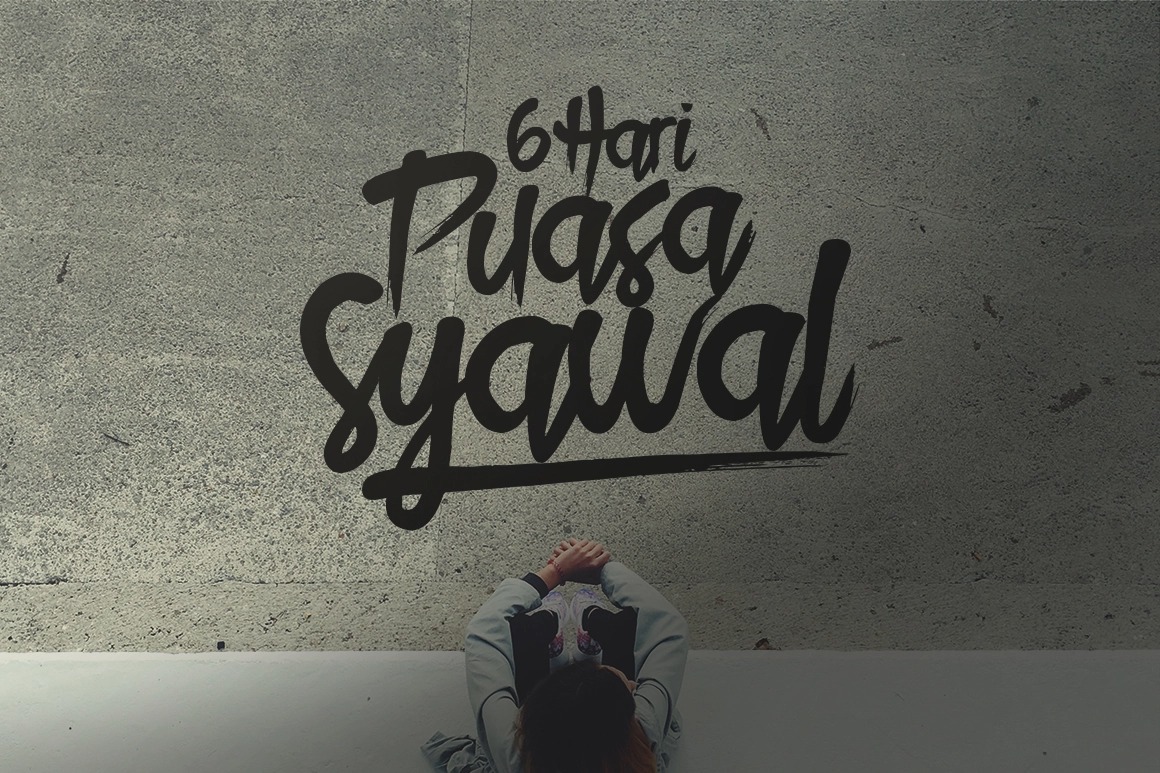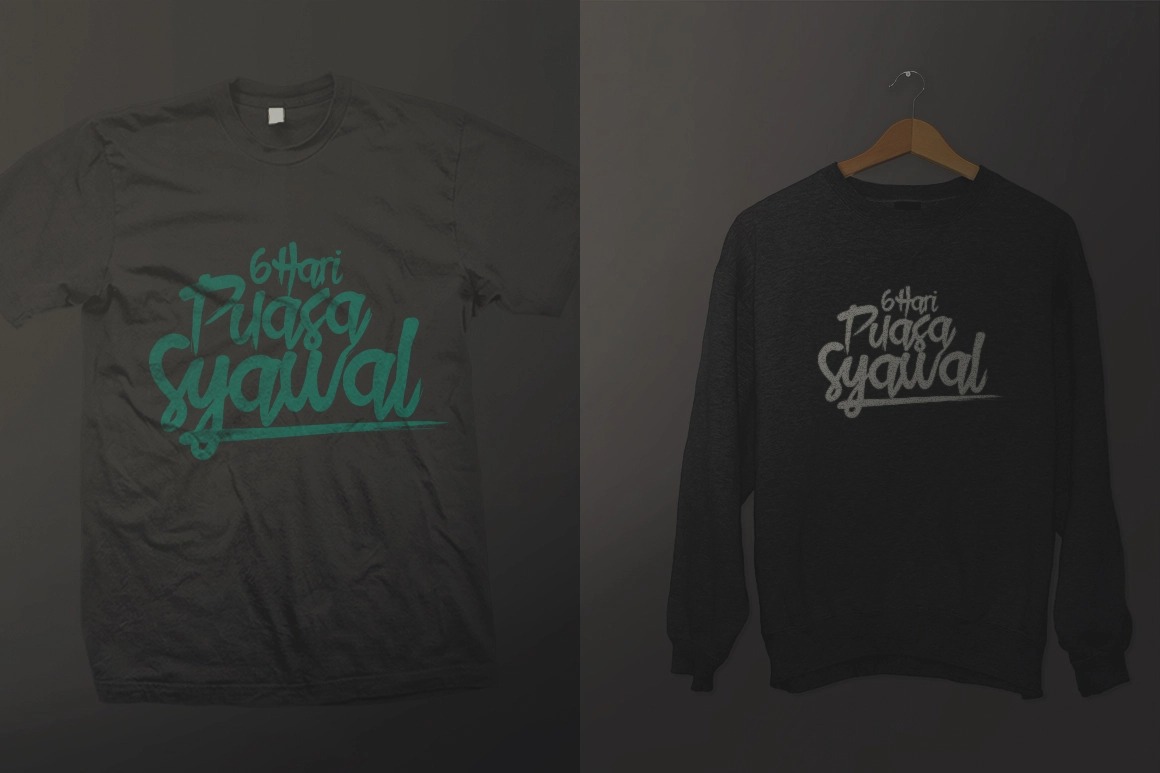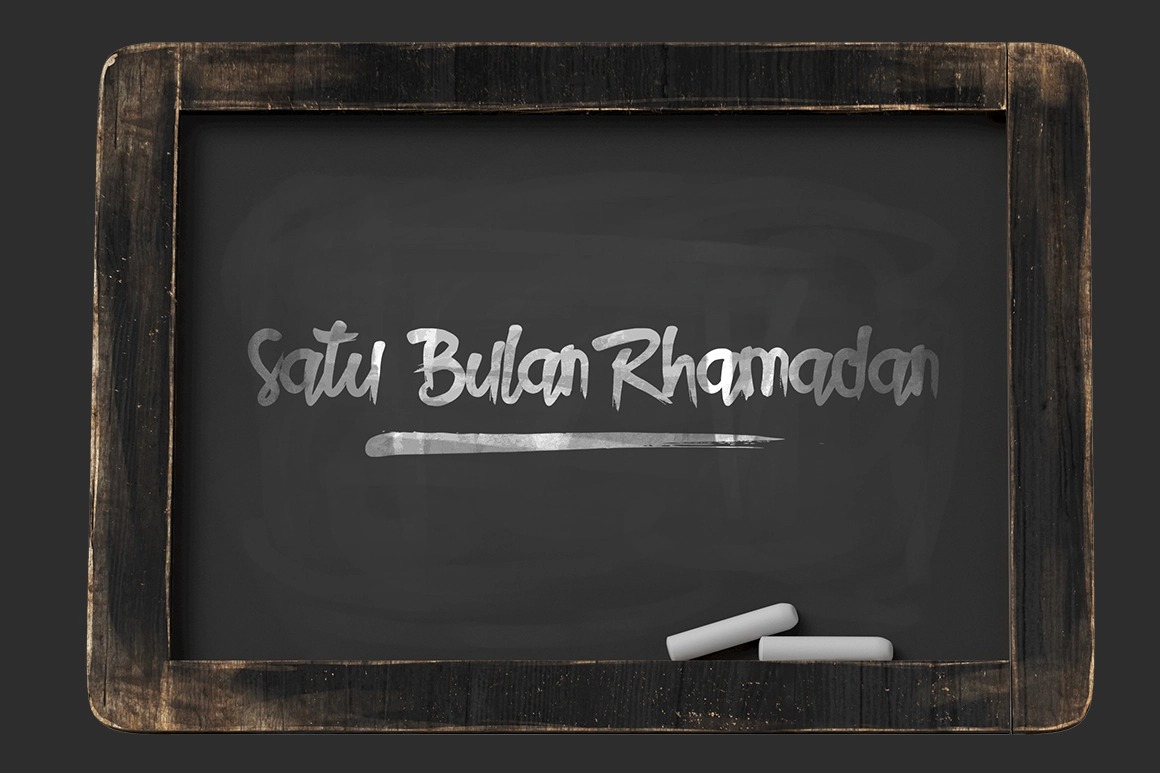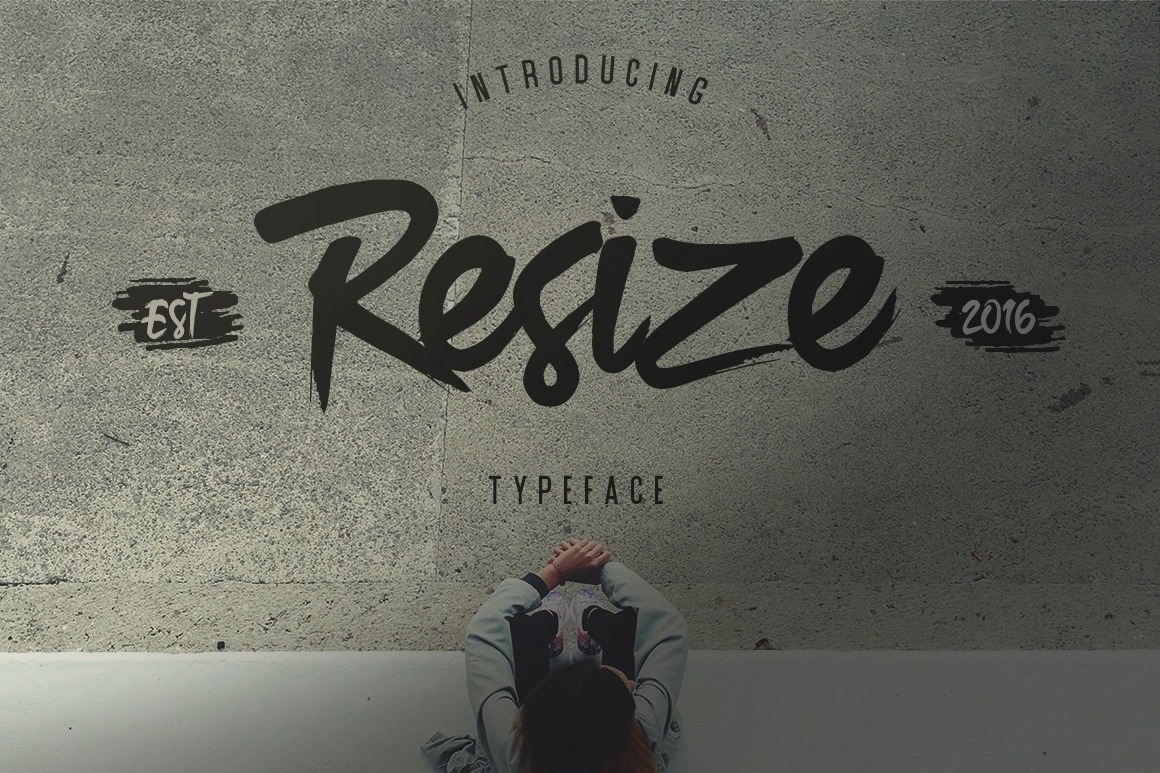
Resize Brush Font
This Font designed by sizimon is a bold hand drawn brush script which is purposely made for headline, display or logotype, and signature which need a standout appearing. This font is also suitable to be applied especially in logo, and the other various formal forms such as invitations, labels, logos, magazines, books, greeting / wedding cards, packaging, fashion, make up, stationery, novels, labels or any type of advertising purpose.